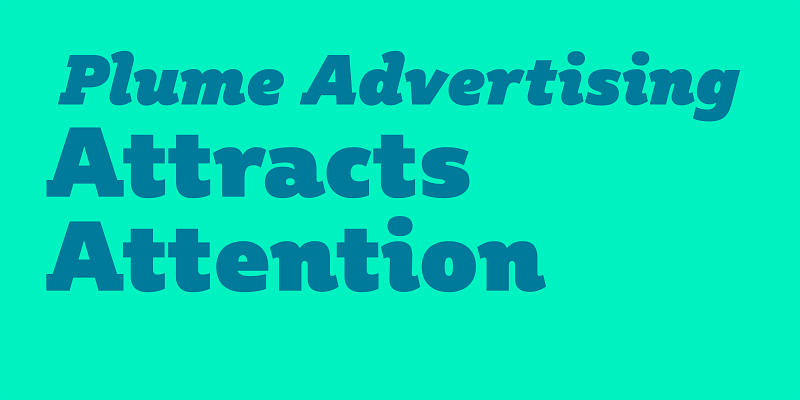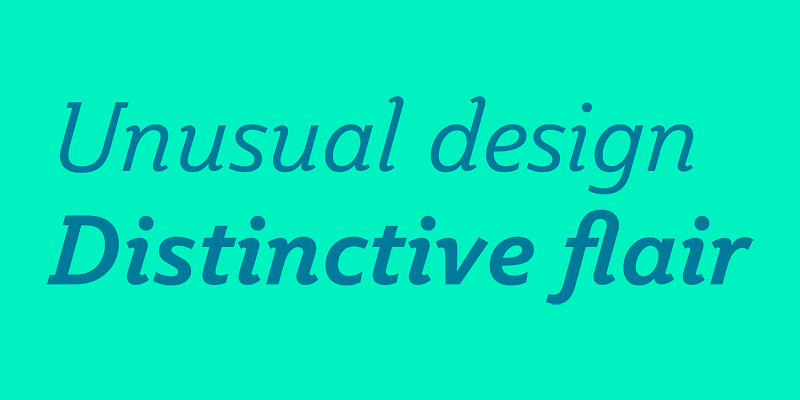
Plume’s inspiration came from the elegance of early italic typewriter fonts. Applying modern design principles, combining beauty and functionality, gives a result that is both legible and expressive.